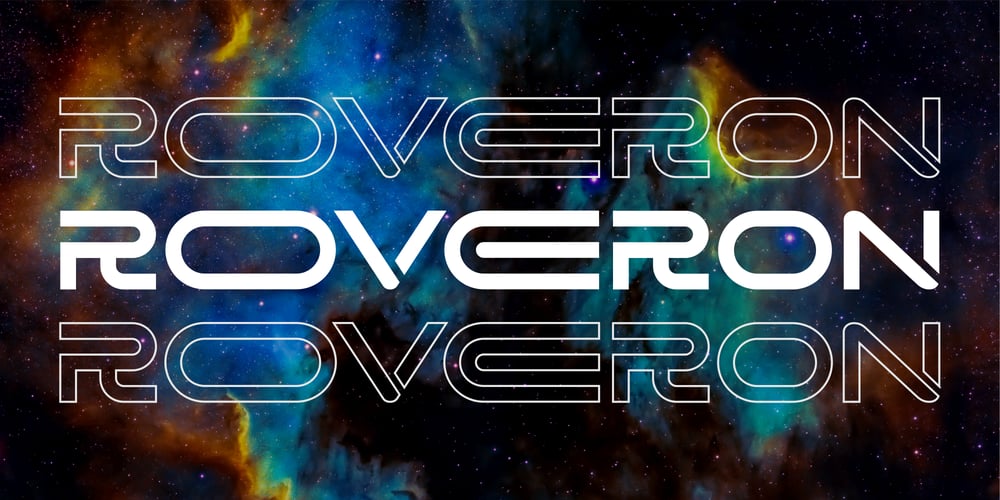
Roveron Font Family was designed by Bayu Noor Witarsa and published by Asenbayu. Roveron contains 1 styles and family package options. Roveron is a futuristic wide display font that has a unique geometric shape. Roveron is inspired by space explorers with a strong contemporary feel. The Roveron features a highly expanded alternative style as well as a discretionary ligature. You can use this font in a modern and sophisticated design. This font is perfect for various projects such as: logos and brand identity, headlines, posters, signs and many more.